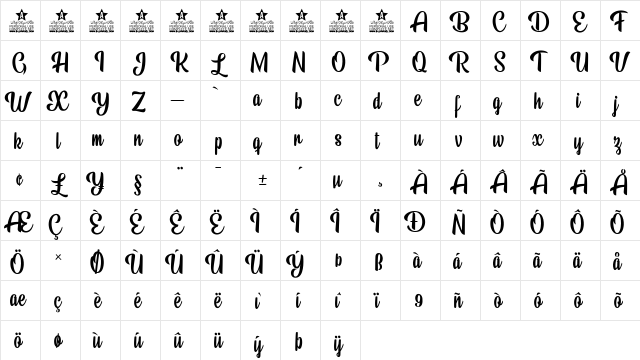
Beauty Mountains Personal Use Regular
| Foundry | Billy Argel |
| Designer | Billy Argel |
Design Context for Beauty Mountains Personal Use Typeface
Beauty Mountains Personal Use is a composed and adaptable typeface that performs quietly and consistently across a wide range of design contexts.